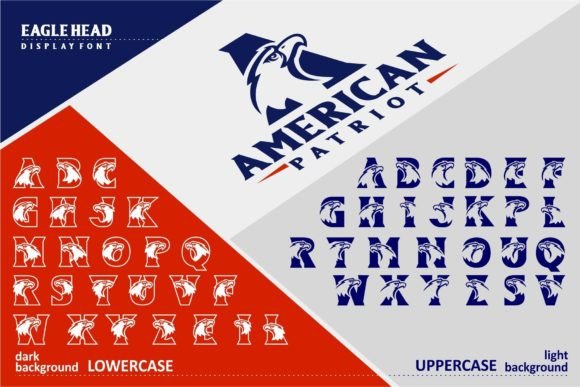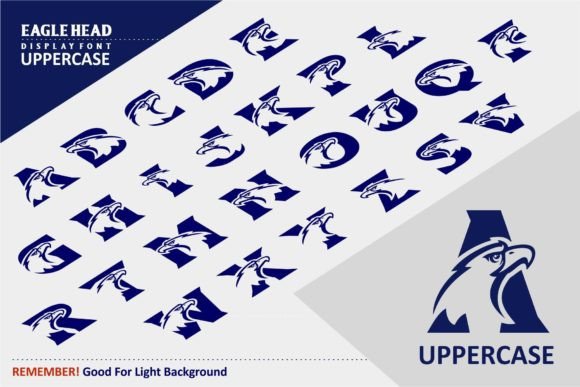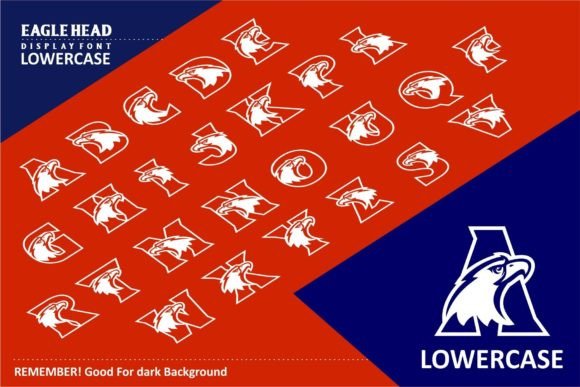
Introduction to Eagle Head Font
Eagle Head is a playful and modern display font.
Eagle Head is perfectly suited for traditional media and the web Great for the crafter and graphic artist alike.